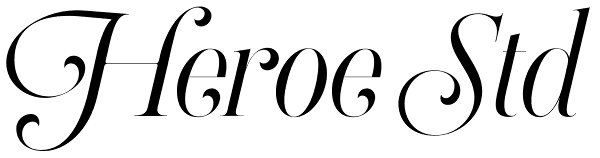
Heroe
DESCRIPTION Now my feelings about didones are more than evident. After some years of roman-abstinence (1) I present Heroe, an interesting combination of elegance and sensuality. Heroe, spanish for hero, takes some aspects of roman typefaces to the...